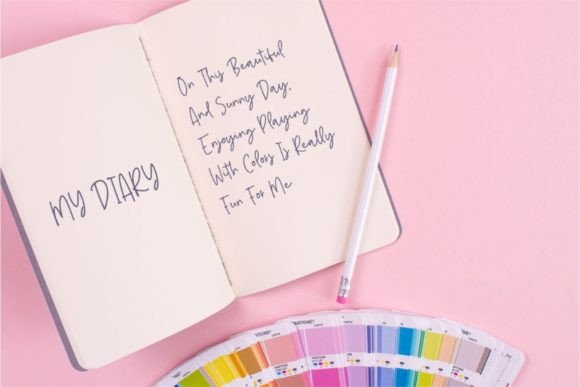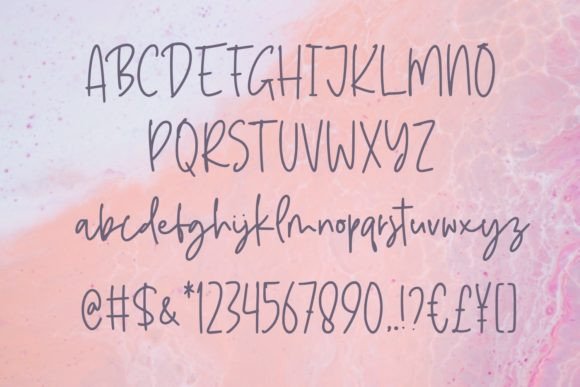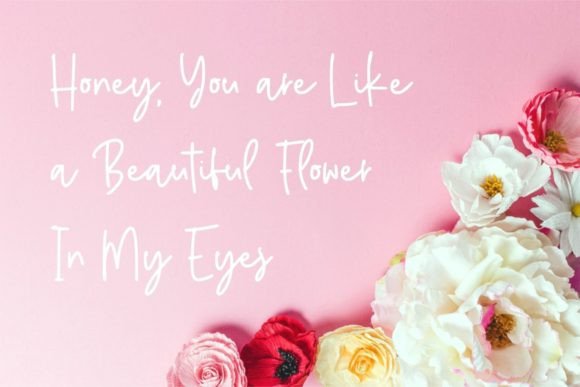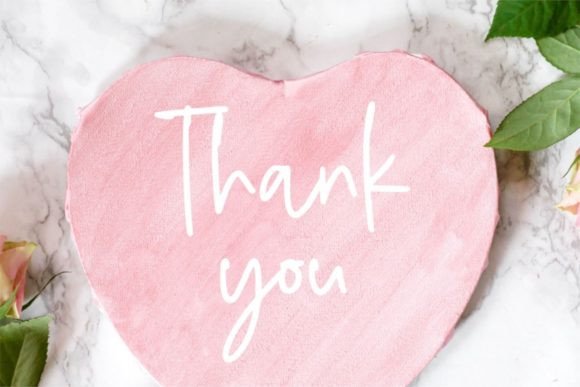
Introducing Birthink Font: The Elegant Handwritten Font for Your Creative Projects
Are you a designer, crafter, or DIY enthusiast looking for a beautiful and elegant font to add a personal touch to your projects? Look no further than Birthink Font, a stunning flowing handwritten font that is sure to impress. With its smooth and fluid strokes, Birthink Font is the perfect choice for anyone looking to add a touch of sophistication and elegance to their work.
What is Birthink Font?
Birthink Font is a carefully crafted handwritten font that is designed to evoke a sense of elegance and refinement. With its flowing strokes and beautiful letterforms, this font is perfect for a wide range of creative projects, from handmade crafts and DIY tutorials to branding and marketing materials. Whether you’re looking to create a beautiful journal page, a stunning logo, or a gorgeous social media graphic, Birthink Font is the perfect choice.
Key Features of Birthink Font
So what makes Birthink Font so special? Here are just a few of the key features that set this font apart:
- Elegant and Refined: Birthink Font is designed to be elegant and refined, with smooth and fluid strokes that give it a sophisticated feel.
- Handwritten with Love: This font is carefully crafted by hand, with each letterform and stroke carefully considered to create a beautiful and unique look.
- Flowing and Connected: Birthink Font is a connected script font, with letters that flow smoothly into one another to create a beautiful and cohesive look.
- Perfect for Creative Projects: Whether you’re a designer, crafter, or DIY enthusiast, Birthink Font is the perfect choice for a wide range of creative projects.
Uses for Birthink Font
So what can you use Birthink Font for? The possibilities are endless! Here are just a few ideas to get you started:
- Handmade Crafts: Add a personal touch to your handmade crafts, such as journals, cards, and gift tags.
- Branding and Marketing: Use Birthink Font to create stunning branding and marketing materials, such as logos, social media graphics, and flyers.
- DIY Tutorials: Add a touch of elegance to your DIY tutorials, such as sewing patterns, recipe cards, and home decor instructions.
- Stationery and Invitations: Create beautiful stationery and invitations, such as wedding invitations, birthday cards, and thank-you notes.
Tips for Using Birthink Font
Here are a few tips for getting the most out of Birthink Font:
- Use it with a Personal Touch: Birthink Font is all about adding a personal touch to your projects. Use it to create unique and handmade elements, such as handwritten quotes or custom illustrations.
- Experiment with Colors and Textures: Don’t be afraid to experiment with different colors and textures to add depth and interest to your projects.
- Pair it with Other Fonts: Birthink Font looks beautiful on its own, but it can also be paired with other fonts to create a stunning contrast. Try pairing it with a bold sans-serif font for a striking look.